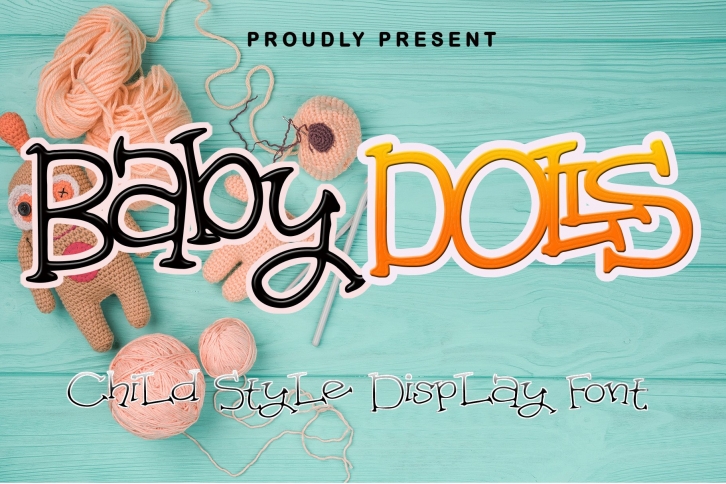
Baby Dolls is a cute, quirky and fun display font. This adaptable font will look great on a variety of design ideas. It will add a fun and friendly touch to each of your projects!